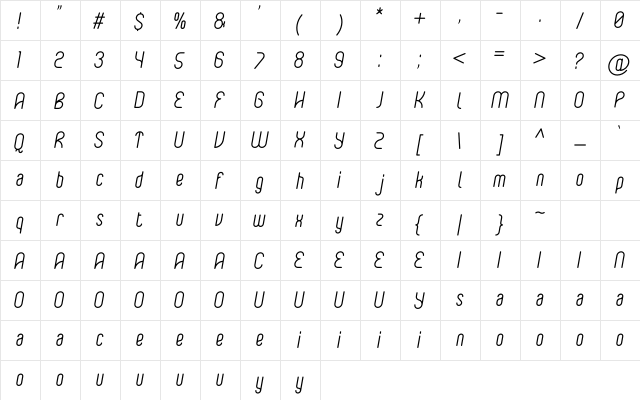
Hakone Italic Italic
Design Context for Hakone Italic Typeface
Hakone Italic is a composed and adaptable typeface that performs quietly and consistently across a wide range of design contexts. The slanted form adds forward momentum and visual energy.
Pro Tip: Try Hakone Italic for annotation and caption copy alongside an upright companion — the contrast in angle creates a dynamic but ordered typographic system.